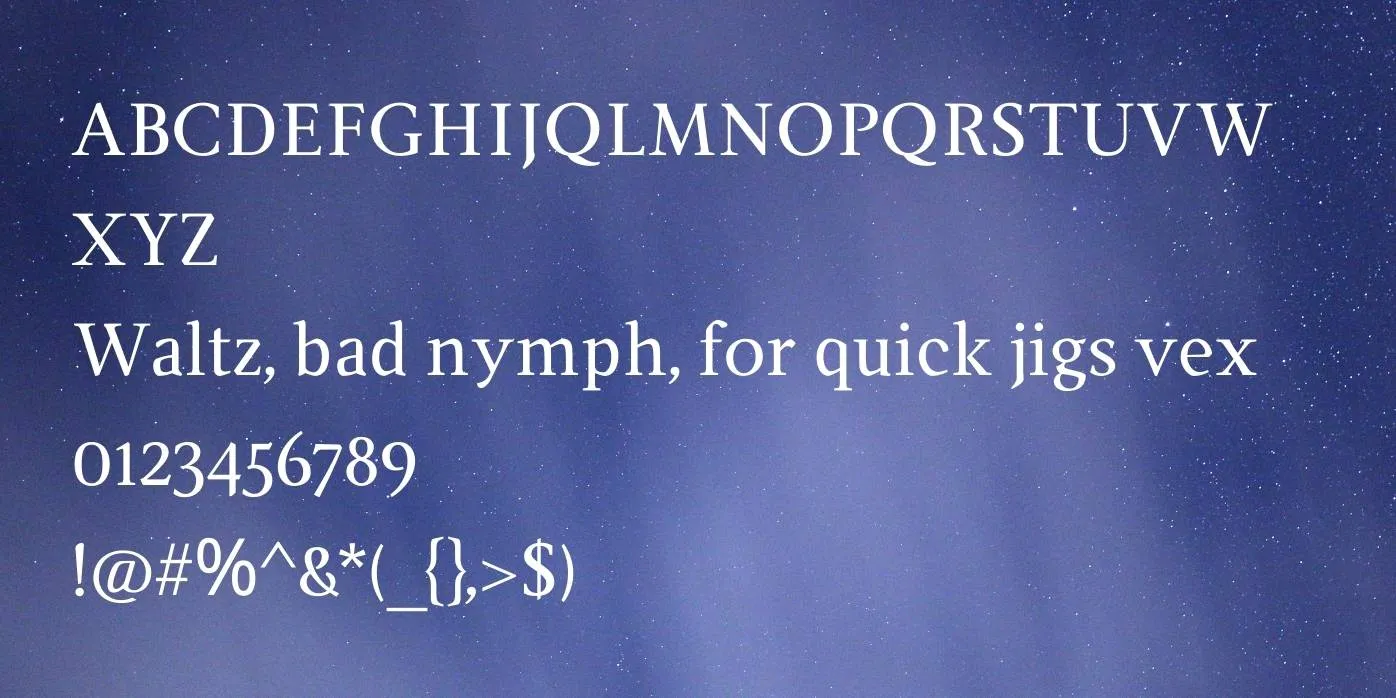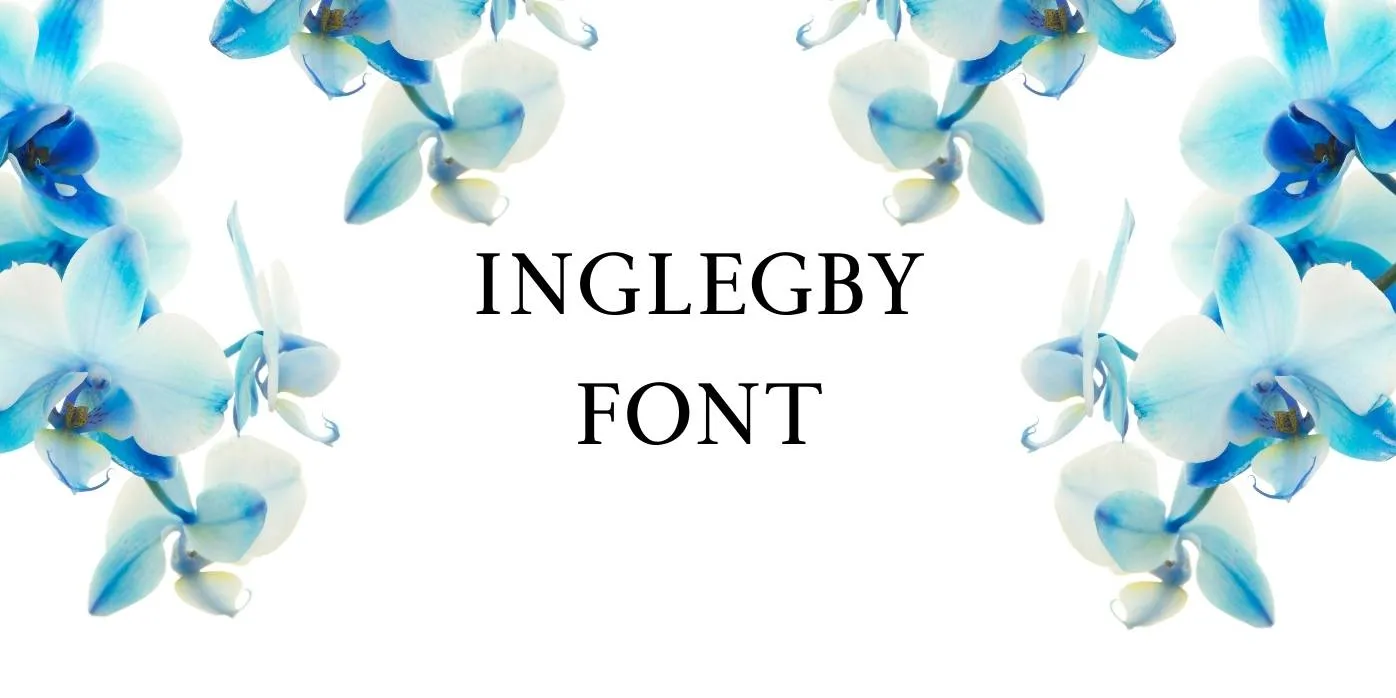
Ingleby Font
Presenting you a very elegant and useful typeface that is Ingleby Font. The font belongs to the Serif typeface family. The designer of this gorgeous font is David Engelby. The font family has very beautiful styles and TTF features.
Ingleby Font has 4 unique styles with different weights including Regular, Bold, Italic, and Bold Italic, etc. It has the ability to support a lot of languages and accents for international usage. The font family has Truetype features and is available for download on our website. The typeface has many reinforce features with Uppercase and Lowercase Letters, symbols, characters, Numbers / Numerals, etc.
If we talk about its glyphs every style of font has different distinctive glyphs that consist of Regular has 273 glyphs, Italic 276, Bold 273, and Bold Italic has 273 glyphs as well.